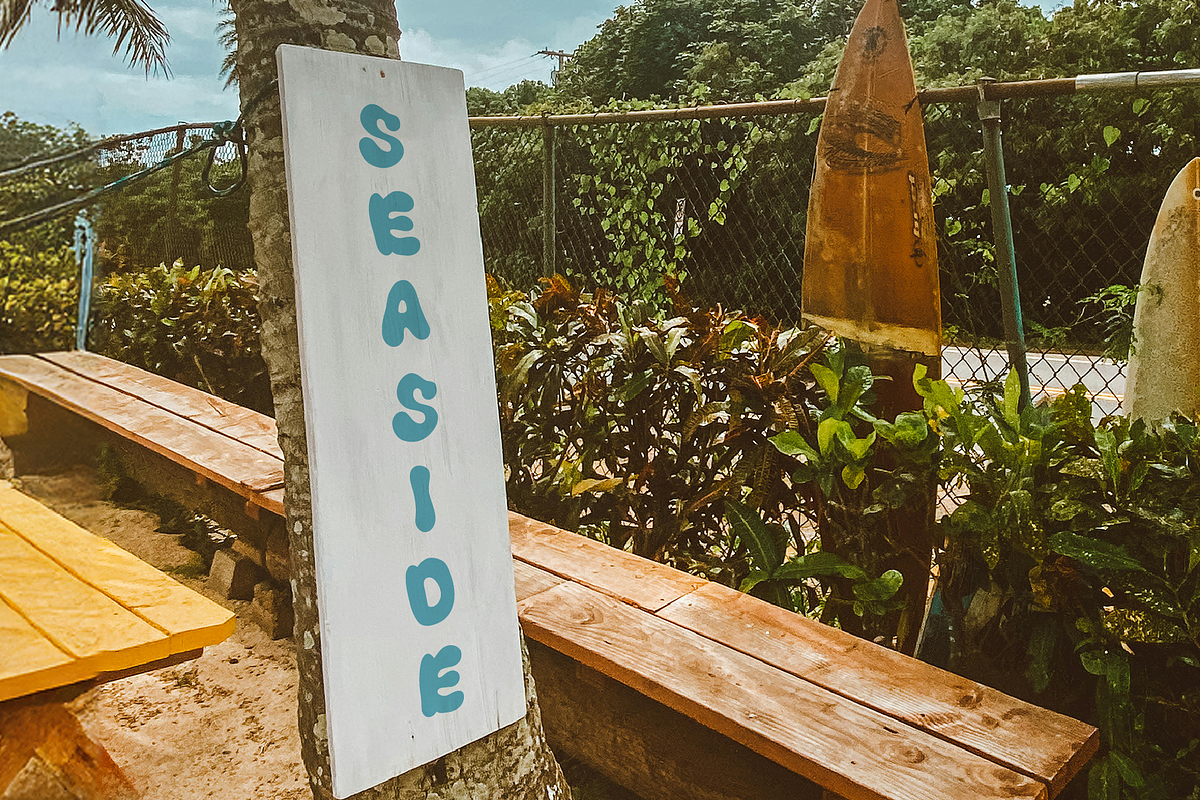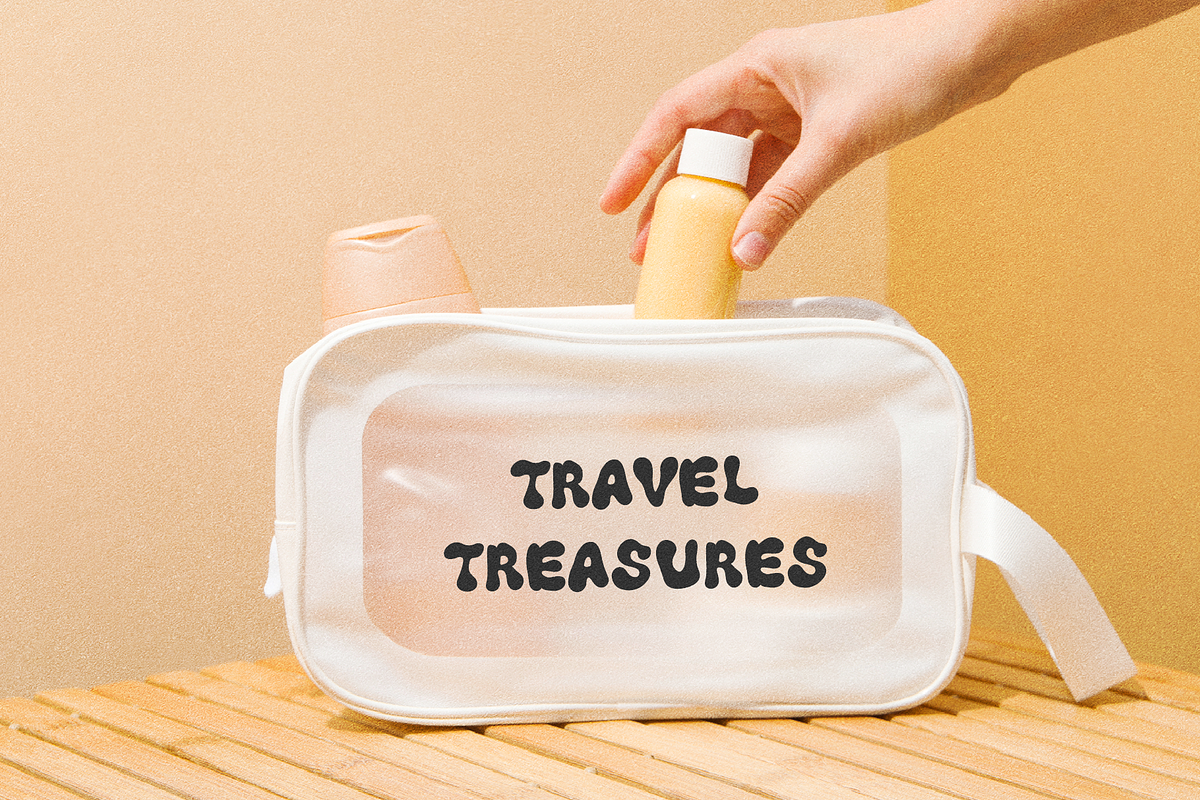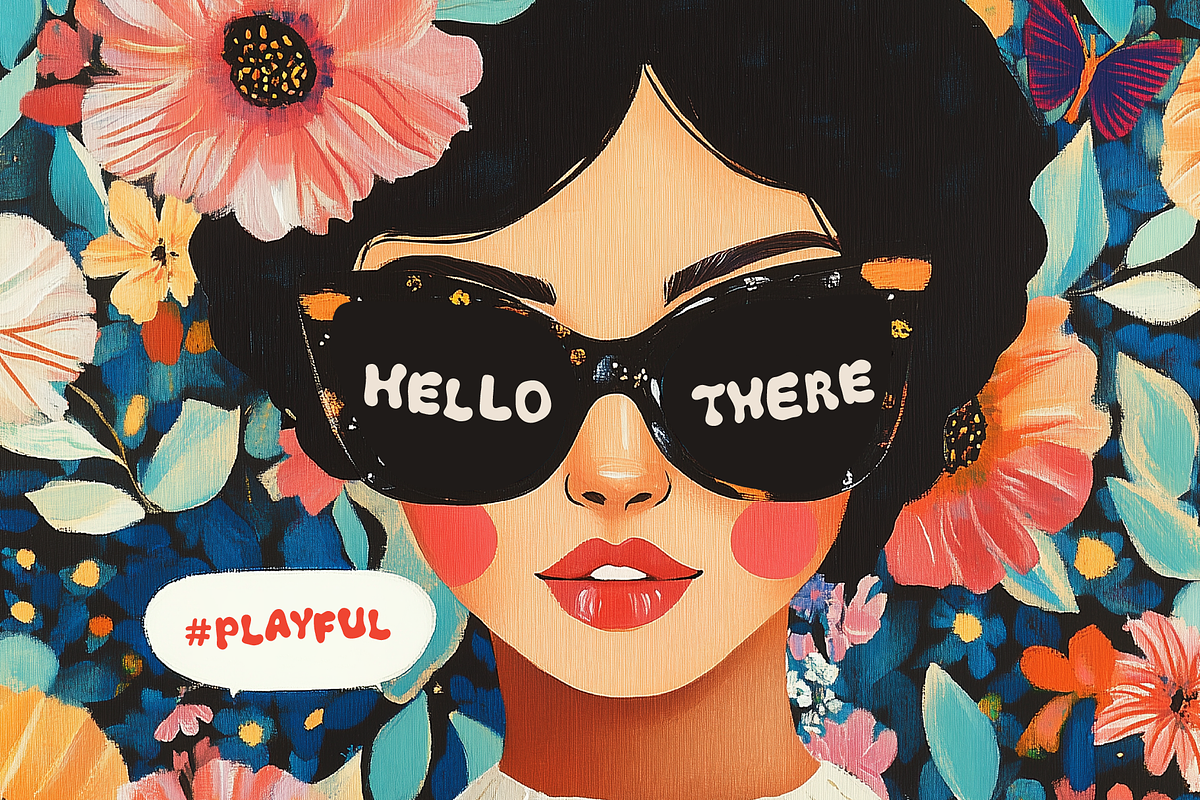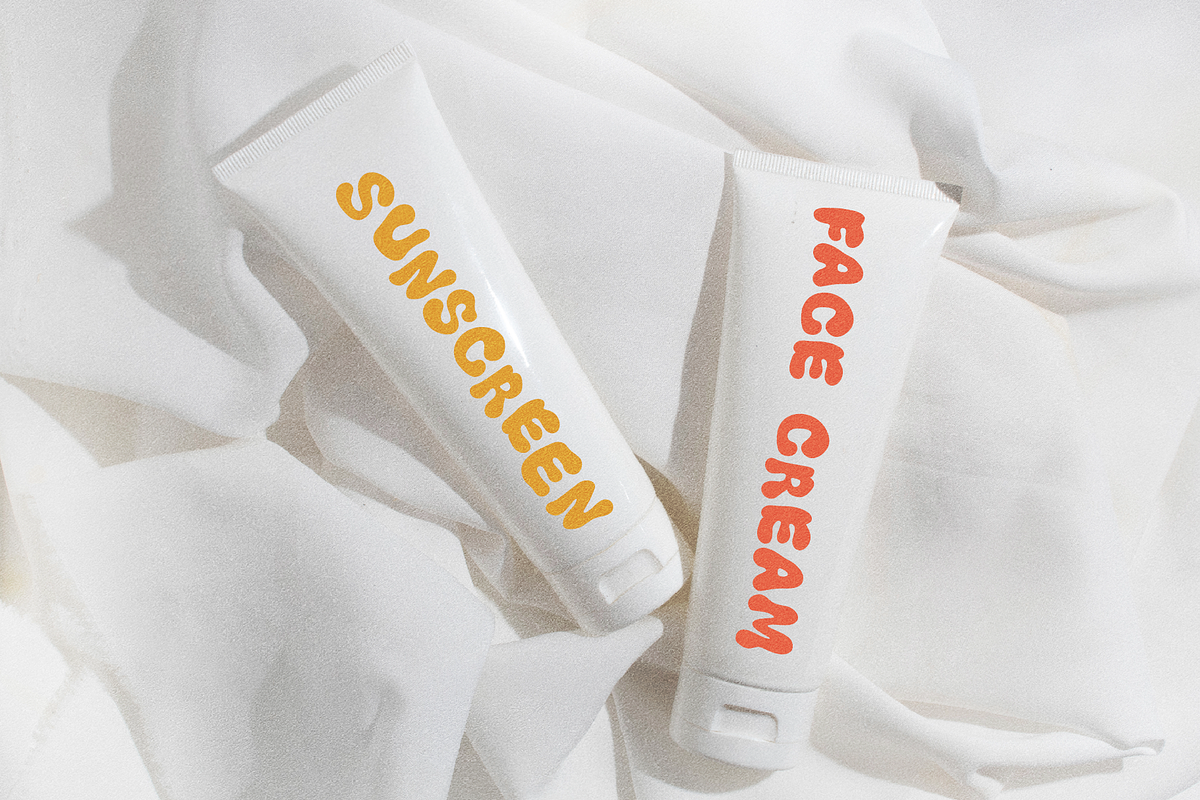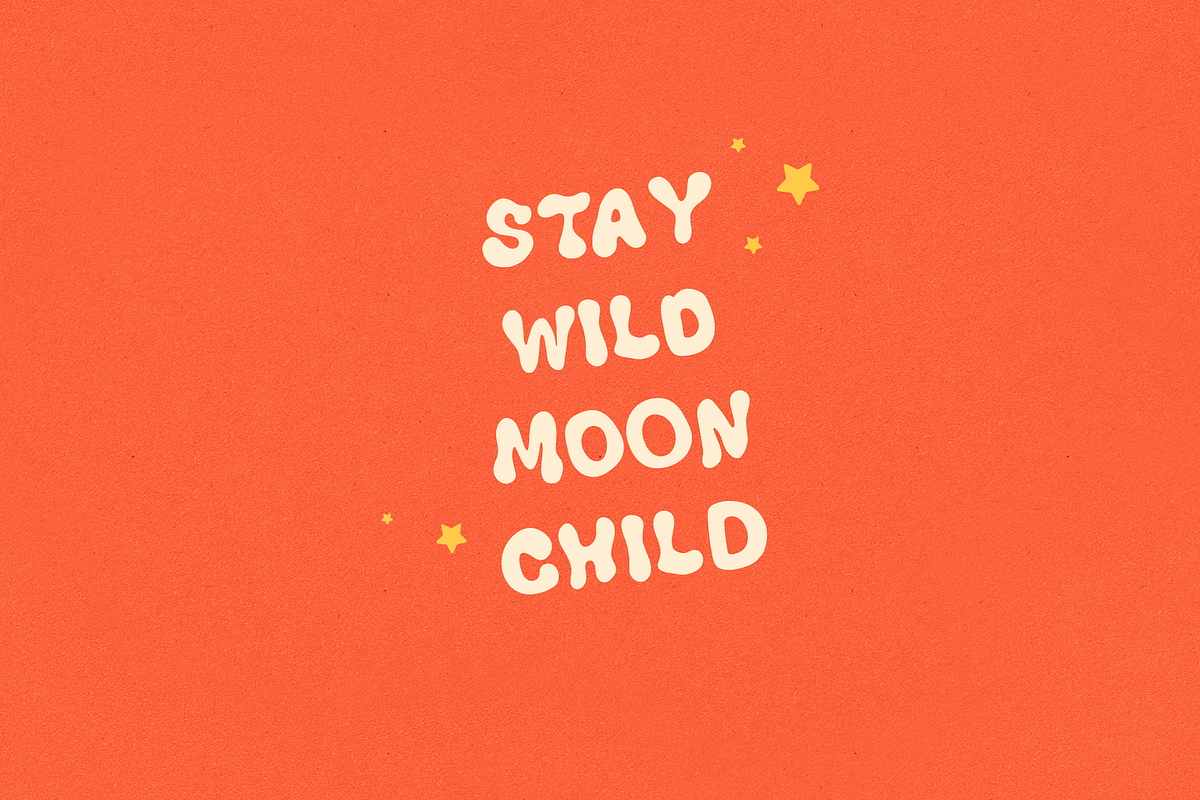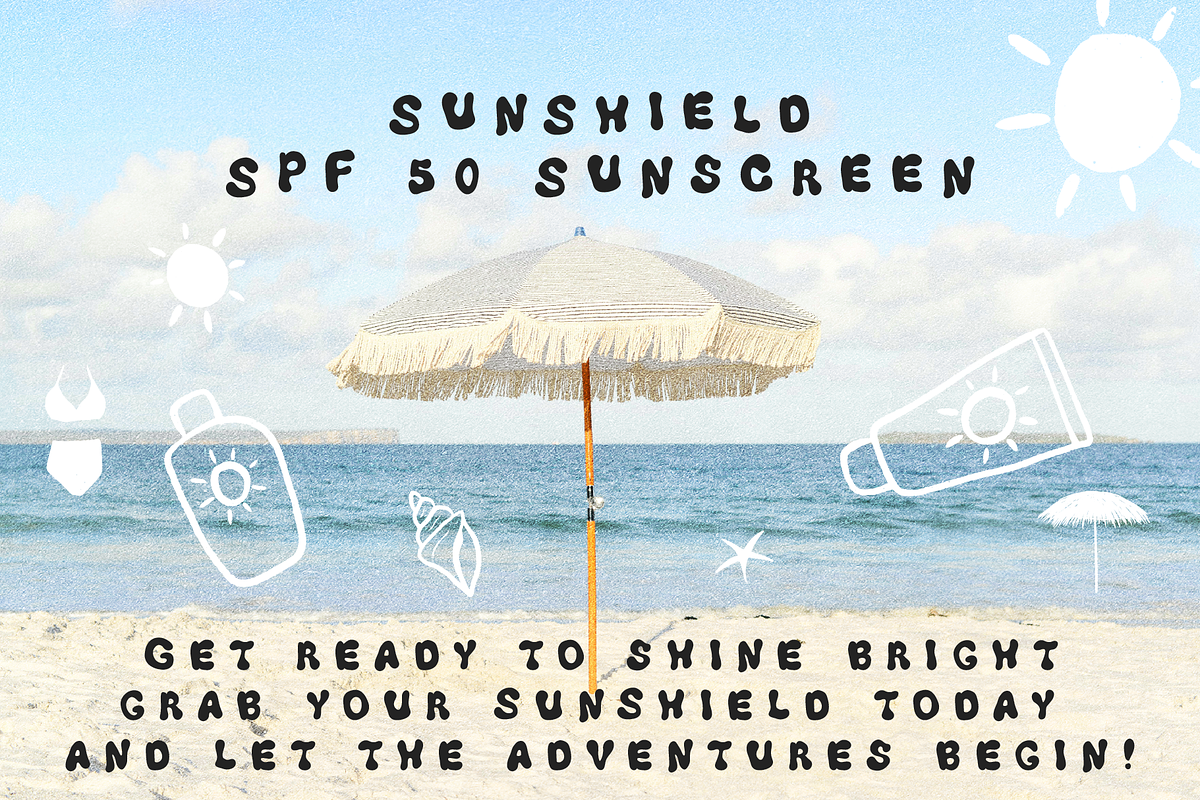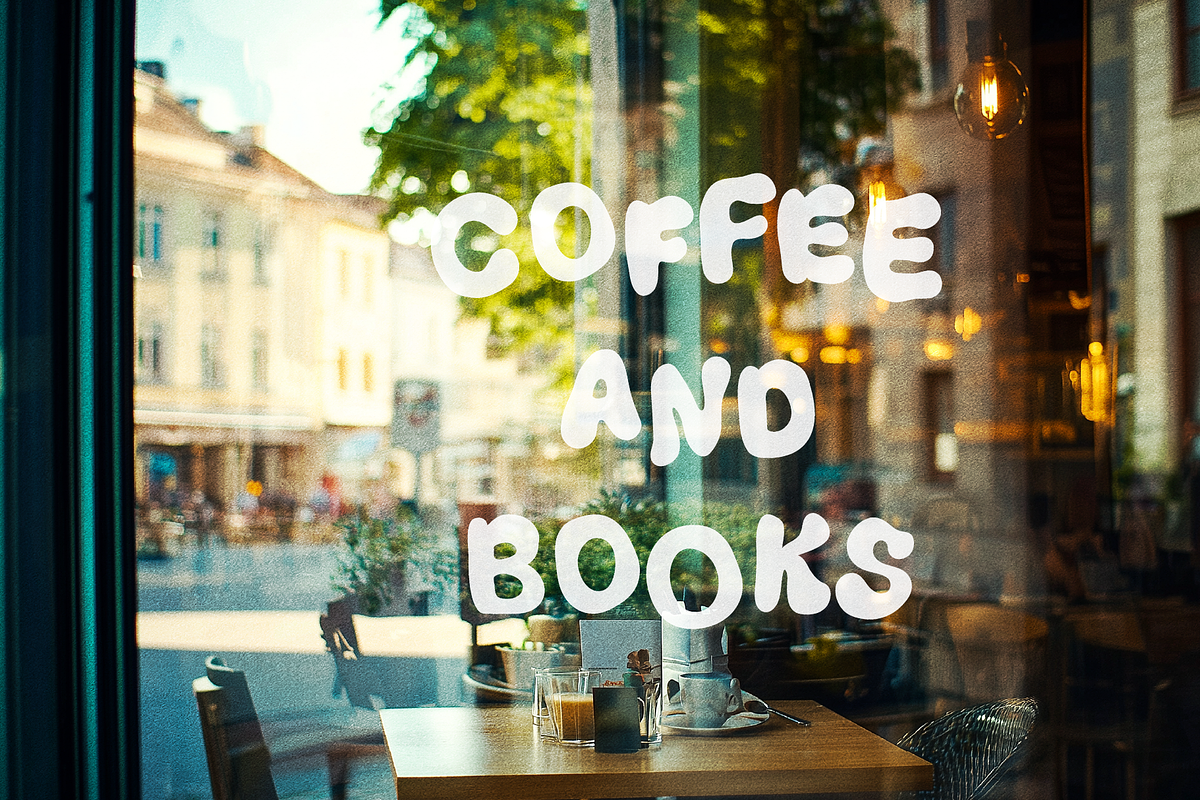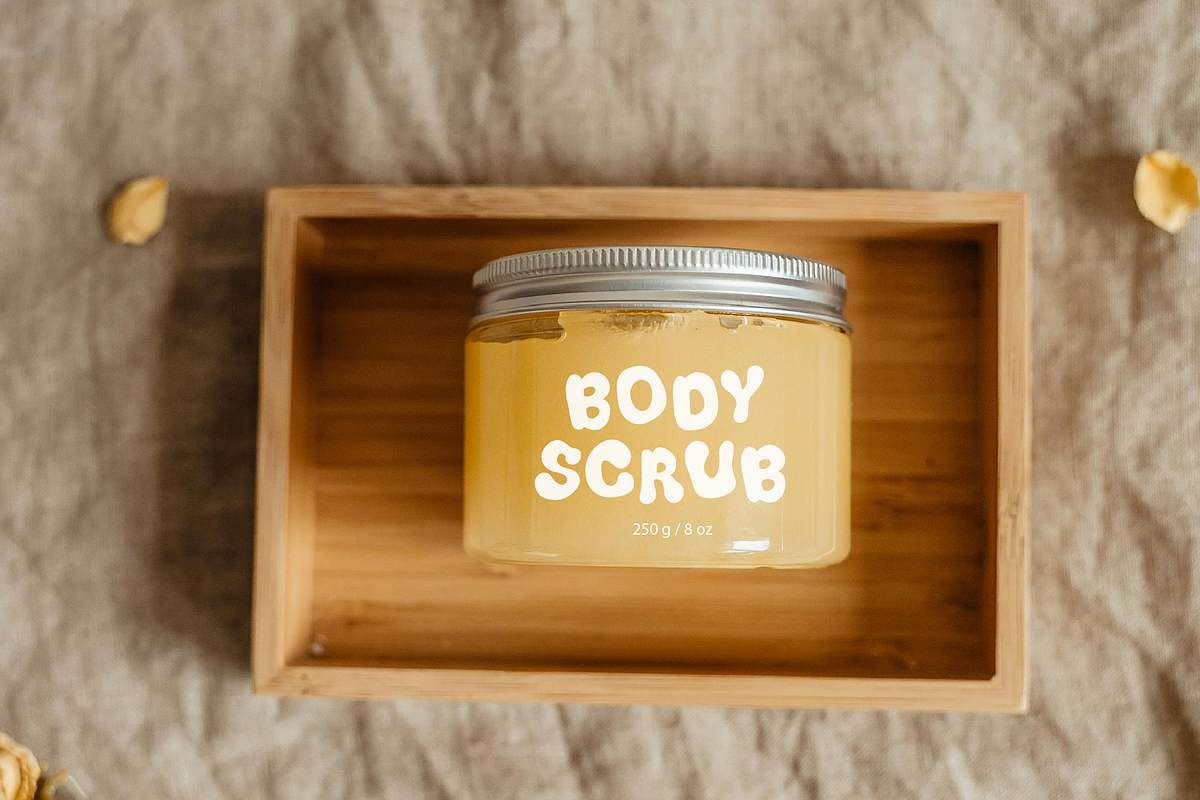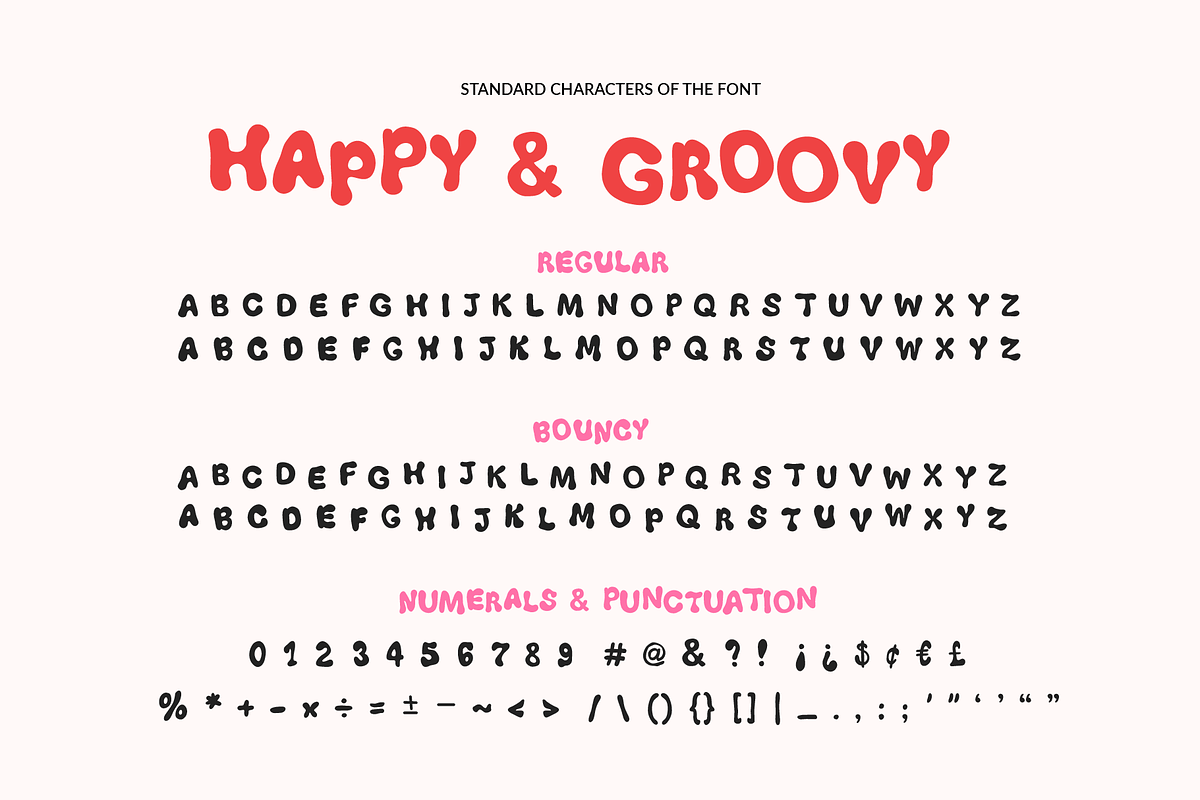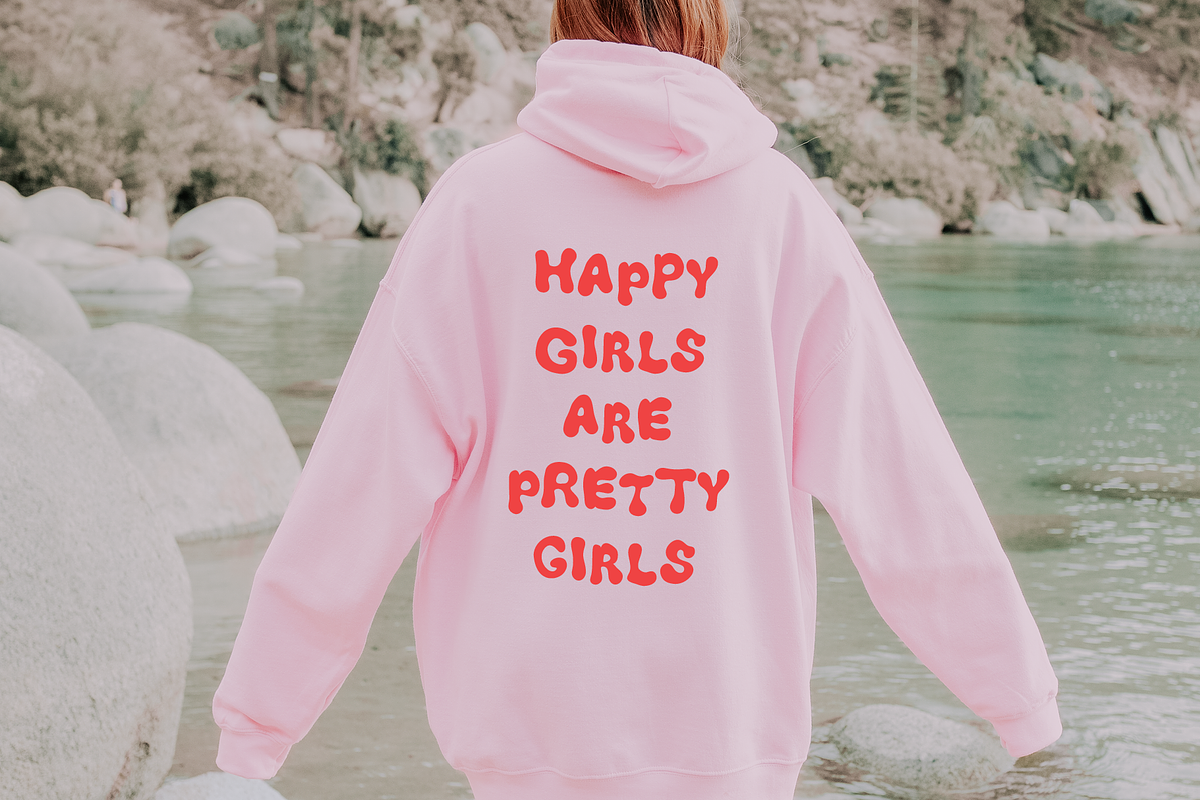
Happy & Groovy Retro Playful Display
Introducing Happy and Groovy – a vibrant, retro-inspired font that dances off the page with its playful curves and bold lines. Each letter is infused with a sense of rhythm, capturing the essence of the '70s and '80s with a modern twist.
Perfect for eye-catching posters, cheerful invitations, fun craft projects, greeting cards, social media, printed goods or any project that needs a splash of nostalgia and fun.
Tip: Mix and match uppercase and lowercase letters when typing double letters to add variation, like in the previews.
• All caps characters
• Numbers, punctuation, symbols
• Supported Languages: Currently English only